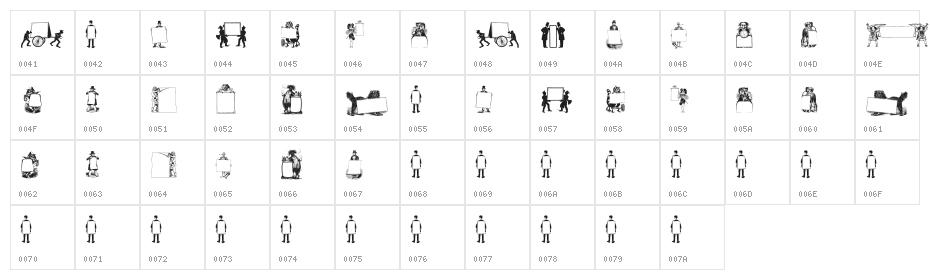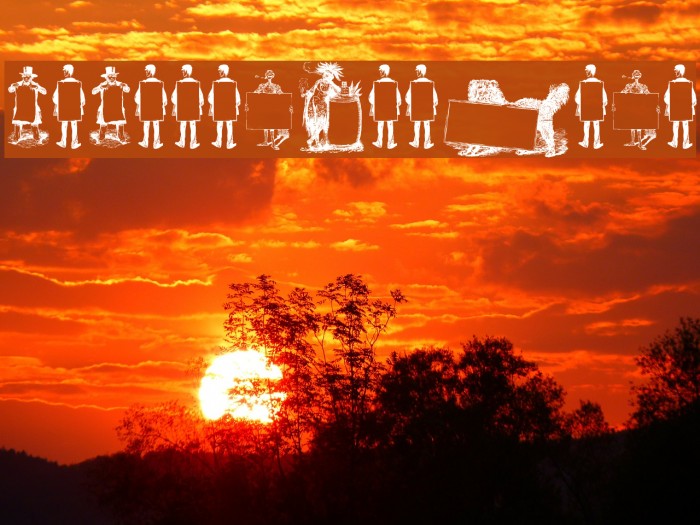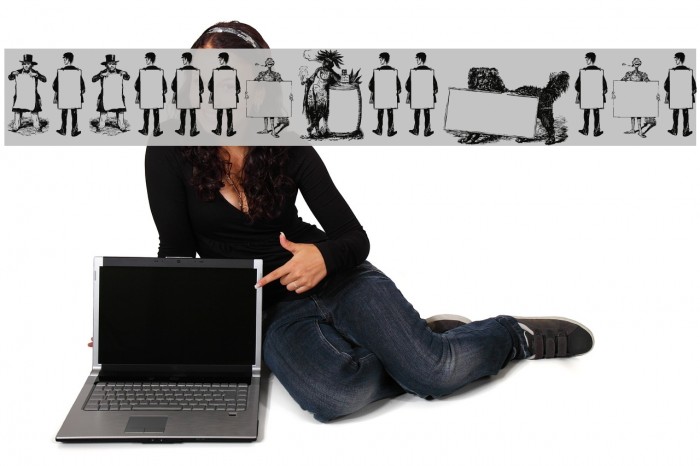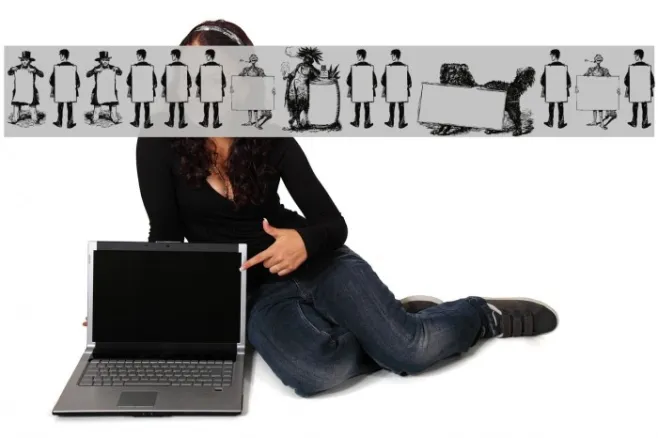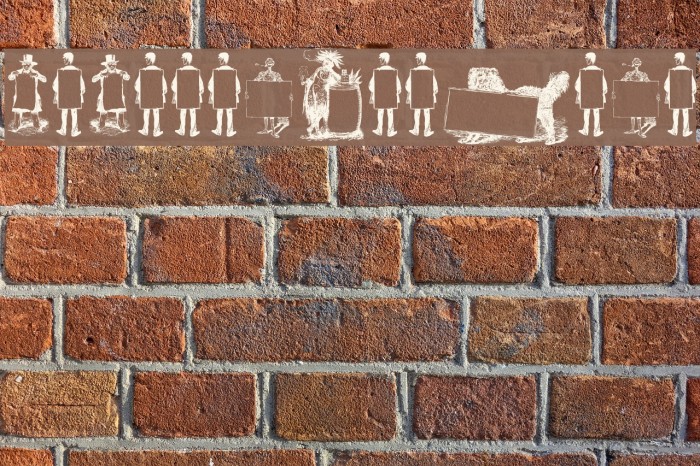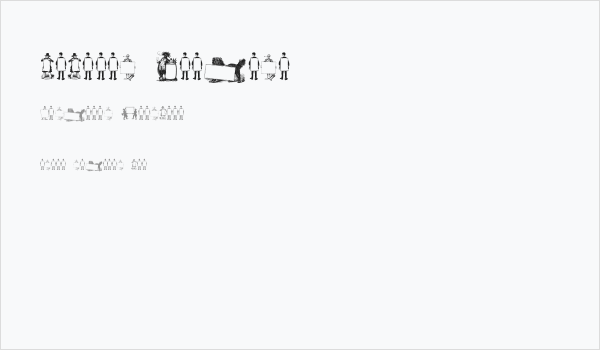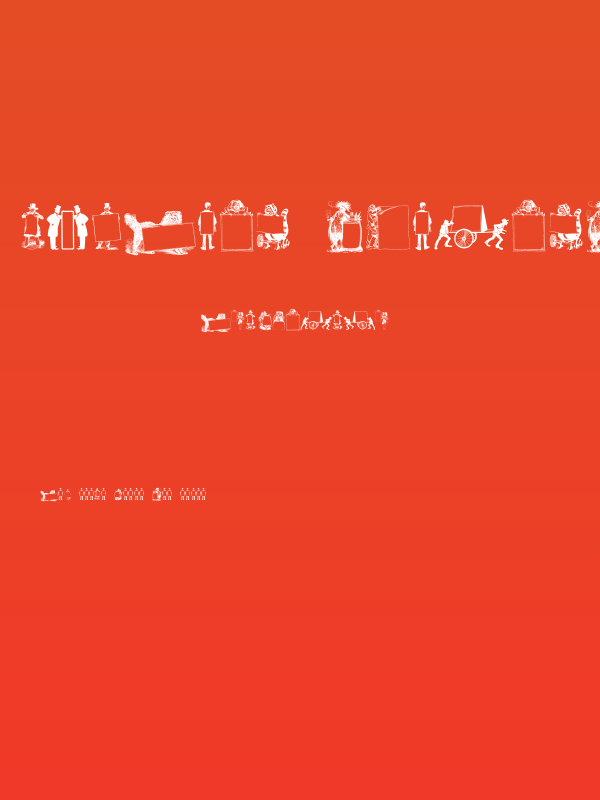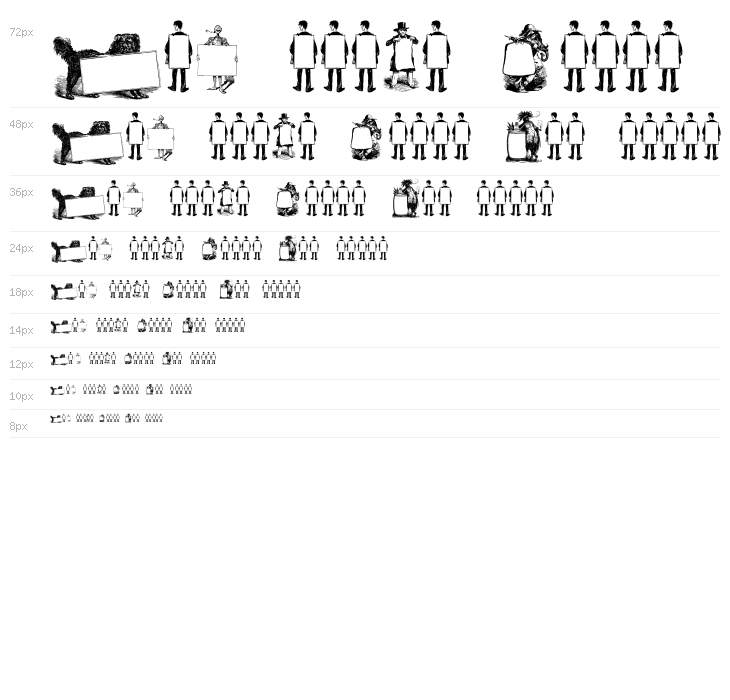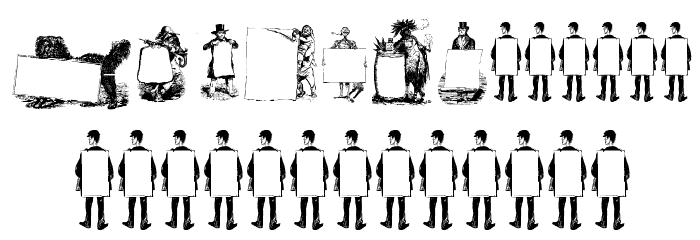
Picture Squares Font
Picture Squares Description
This font is a unique and whimsical decorative style where each character is represented by a vintage illustration of people and animals holding blank signs. The illustrations are detailed and evoke a sense of nostalgia, reminiscent of old storybook or newspaper illustrations. Each character is distinct, with the signs serving as placeholders for the letters or numbers, creating a playful and artistic effect. The font is not meant for traditional readability but rather for creative projects where visual impact is more important than textual clarity.
| Overall Style | Vintage, Decorative |
| Use Case | Logos, Posters, Artistic Displays |
| Proposed Projects | Ideal for creative projects like posters, greeting cards, or artistic book covers where a unique and playful aesthetic is desired. |